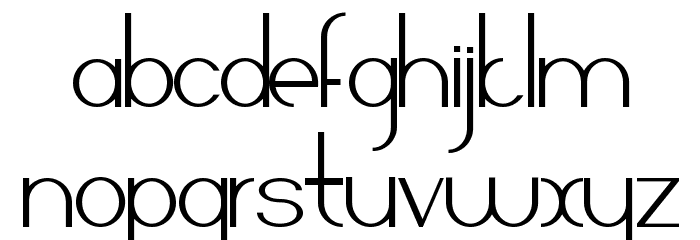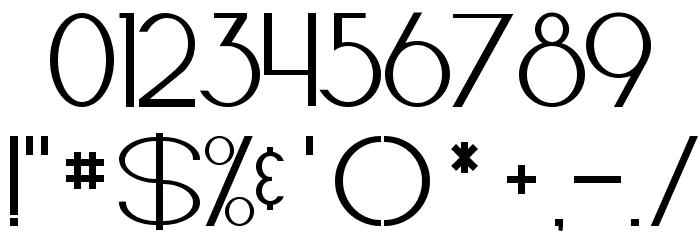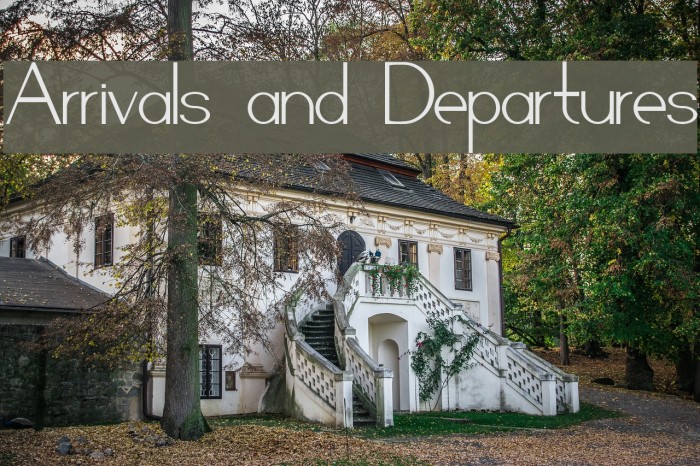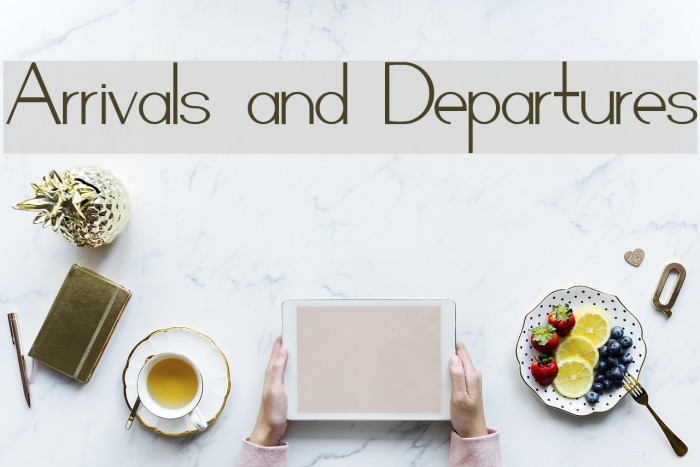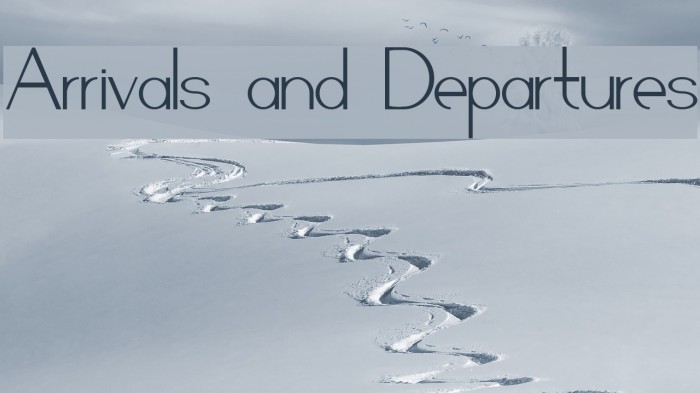
Arrivals and Departures Font
This font features a modern and sleek design with geometric influences. The characters are constructed with clean, straight lines and circular elements, giving it a futuristic and minimalist appearance. The uppercase letters are tall and uniform, while the lowercase letters maintain a consistent style with rounded edges. Numbers are designed with a similar geometric precision, ensuring readability and aesthetic appeal. Special characters are crafted to match the overall style, making this font versatile for various design needs.
A modern, geometric font with sleek lines and circular elements.
- Proposed Projects: Ideal for branding, advertising, and digital interfaces where a modern and clean look is desired.
- Use Case: Headlines, Logos, Digital interfaces